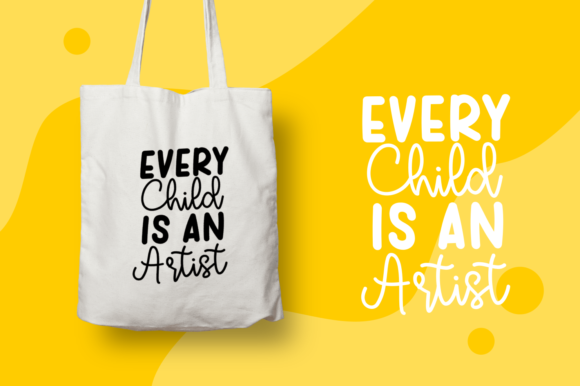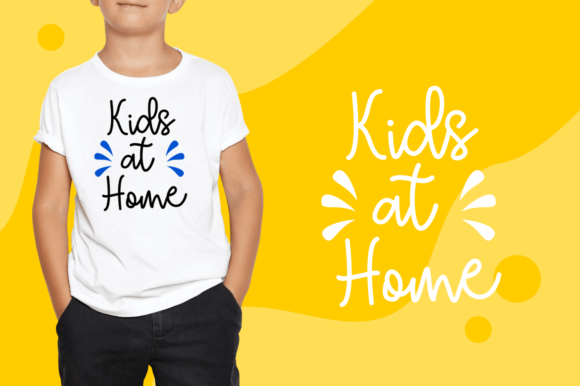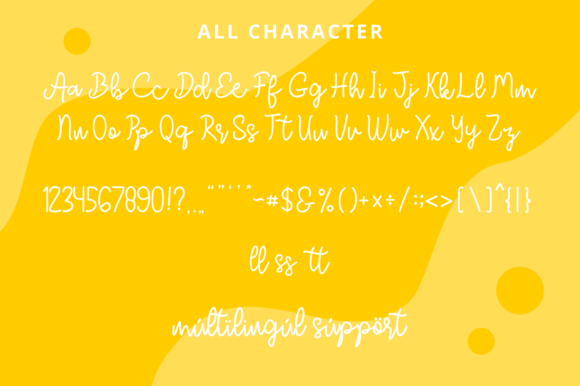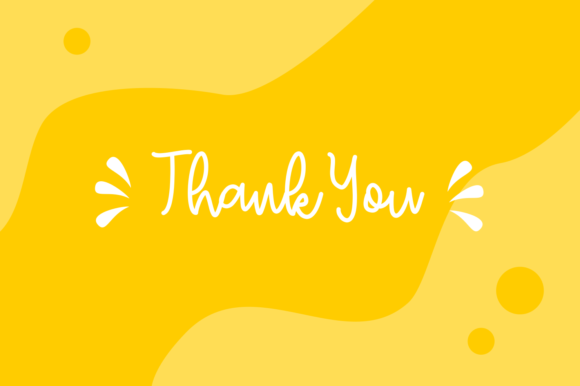
Discover the Enchanting World of Chesta Font
A Personal Review of Chesta Font
What I Love About Chesta Font
- ✅ Incredibly versatile style: Chesta Font is perfect for a wide range of design projects, from wedding invitations to social media posts.
- ✨ Simple, magical, and timeless: This font effortlessly exudes a sense of whimsy and sophistication.
- 💫 Easy to read: Chesta Font is clear and legible, making it perfect for both digital and print designs.
- 🎨 Highly customizable: With its extensive range of OpenType features, glyphs, and stylistic alternates, you can experiment with various styles to match your unique vision.
While Chesta Font is an excellent choice for many design projects, there are a few minor limitations to consider:
- 🤔 Limited availability of certain characters: Some special characters might not be included in the standard font package.
- ⚠️ Occasional kerning issues: As with any font, you might encounter kerning problems when pairing Chesta with other fonts.
The Story Behind Chesta Font
Chesta Font was designed with the intention of creating a simple, yet magical font that could be used for a wide range of design projects. The designer aimed to craft a font that would evoke a sense of timelessness and versatility, making it perfect for creative hobbyists and professionals alike.
Q: What type of projects is Chesta Font best suited for?
A: Chesta Font is incredibly versatile and can be used for various design projects, including wedding invitations, social media posts, stationery, and more.